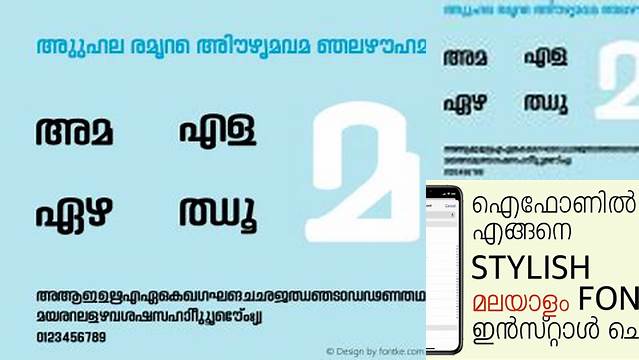
Apple Cards Anugraha Font: Free Download Guide
Hey guys! Ever wondered about that sleek, elegant font used on Apple Cards? It's called Anugraha, and it’s seriously eye-catching. In this guide, we're diving deep into everything you need to know about the Anugraha font, including how to download it for free and use it in your own projects. So, buckle up and let's get started!
1. What is the Anugraha Font?
So, what exactly is the Anugraha font? Well, it's a beautifully designed typeface known for its clean lines and modern aesthetic. It's the font that gives the Apple Card its distinctive look, making it instantly recognizable. The Anugraha font is part of Apple's larger font family, often used for its simplicity and elegance. It’s perfect for designs that need a touch of sophistication. Imagine using it for invitations, posters, or even your personal branding! The versatility of the Anugraha font makes it a favorite among designers. It’s not just about looking good; it’s about creating a visual impact that resonates with your audience. Plus, with its readability at various sizes, it's a practical choice for both digital and print media. Whether you’re working on a website or a business card, this font can add a touch of class. So, if you're aiming for a clean, contemporary feel, Anugraha is definitely a font to consider. It's no wonder Apple chose it for their iconic card!
2. History and Origin of Anugraha Font
The history of the Anugraha font is pretty interesting. While it's most famously associated with Apple Cards, its origins go a bit deeper. Developed as part of Apple's effort to create a cohesive brand identity, Anugraha fits seamlessly into their design philosophy. Apple has always been about simplicity and elegance, and the Anugraha font embodies these principles perfectly. The font was likely commissioned or created by a team of typographers who understood Apple's vision for its products. They wanted a font that was modern, readable, and visually appealing—a font that could convey sophistication and reliability. Think about it: the font you use says a lot about your brand. Apple needed something that matched their premium image, and Anugraha delivered. The sleek and minimalist design of Anugraha reflects Apple's broader design language, which emphasizes clean lines and a user-friendly experience. This attention to detail is what sets Apple apart, and the Anugraha font is a key element of that brand identity. So, when you see Anugraha, you're not just seeing a font; you're seeing a piece of Apple's design history.
3. Key Features and Characteristics of Anugraha
Alright, let's talk about what makes the Anugraha font so special. Its key features and characteristics are what set it apart from other fonts out there. First off, Anugraha is known for its clean and modern lines. This gives it a contemporary feel that's both stylish and easy to read. The font has a certain geometric quality to it, with precise angles and balanced curves that create a harmonious look. Another standout feature is its versatility. Anugraha works well in a variety of contexts, from headlines to body text. It’s equally at home on a website, a business card, or a poster. This adaptability makes it a fantastic choice for designers who need a reliable and stylish font. The legibility of Anugraha is also top-notch. The letterforms are designed to be clear and distinct, even at smaller sizes, which is crucial for readability. Plus, the spacing between letters is carefully calibrated to prevent crowding and ensure a smooth reading experience. In short, Anugraha is a font that blends form and function beautifully. It’s not just about looking good; it’s about communicating effectively. And that’s what makes it a winner in the design world.
4. How Anugraha Font is Used in Apple Cards
You've probably seen the Anugraha font in action without even realizing it—specifically, on Apple Cards. Apple chose this font to give their credit card a sleek and sophisticated look, and it works like a charm. The Anugraha font is used for the cardholder's name, the card number, and other important details. Its clean lines and modern aesthetic perfectly complement the minimalist design of the card itself. Think about it: the font is one of the first things you notice when you look at an Apple Card. It’s clear, readable, and exudes a sense of elegance. This contributes to the overall premium feel of the product. Apple’s decision to use Anugraha wasn’t just about aesthetics, though. The font's legibility is crucial for ensuring that the information on the card is easy to read and understand. This is particularly important for things like the card number, which needs to be accurate and instantly recognizable. So, the next time you see an Apple Card, take a closer look at the font. It’s a key part of what makes the card so visually appealing and functional.